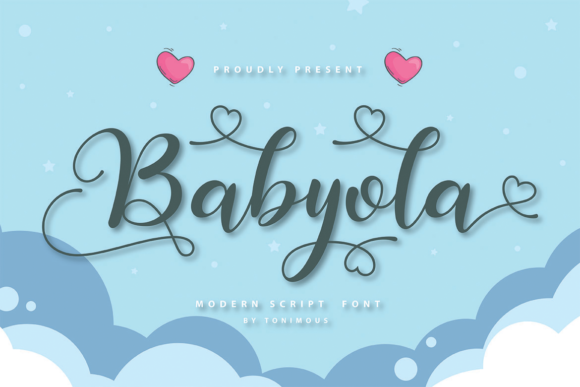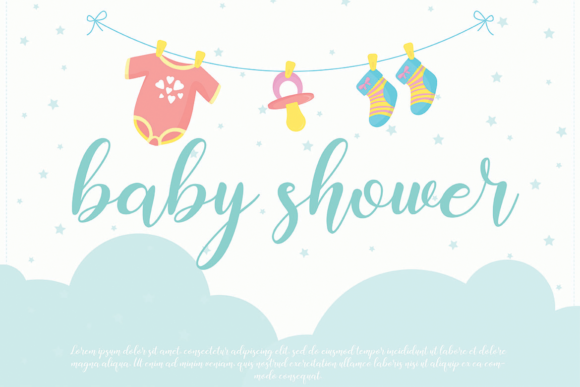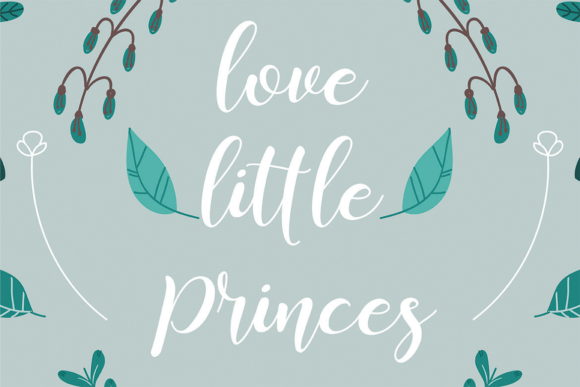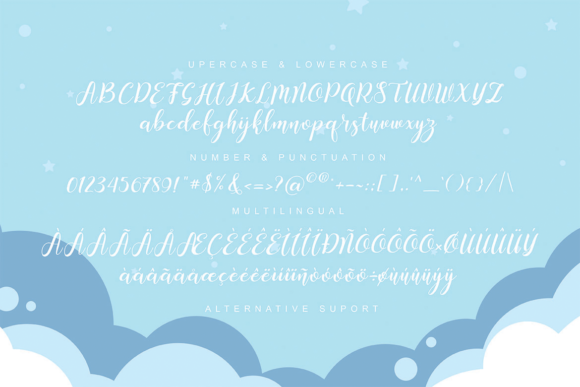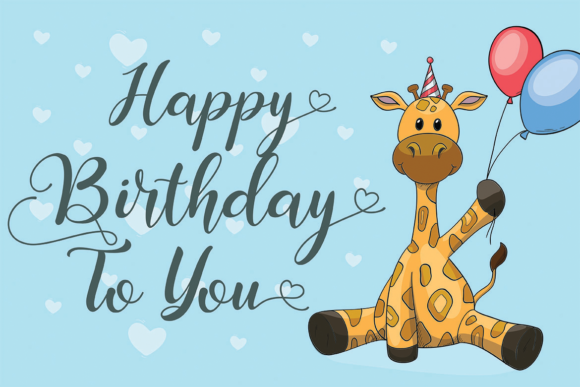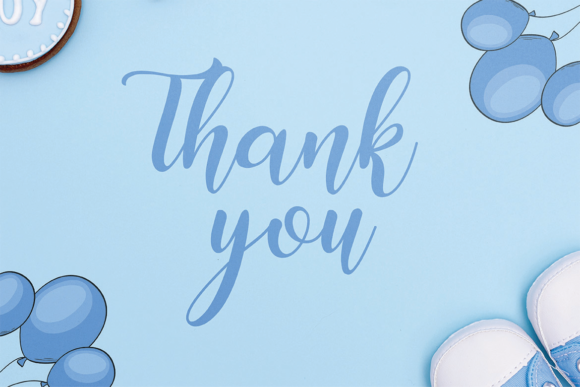
Babyola Font
About Babyola Font
Babyola is a casual and friendly script font. This enchanting Babyola font will turn any creative idea into a true standout. Get creative with its childlike playfulness, and use it to brighten up any kids and school project!